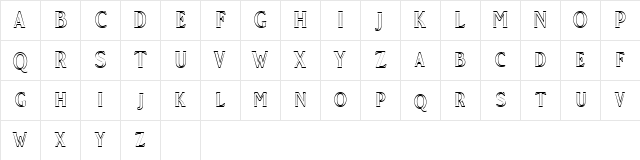
Gold Coast Free Outline Regular
Design Context for Gold Coast Free Outline Typeface
Gold Coast Free Outline is built around its visual character rather than neutral utility — its distinctive forms are designed to make an impression at display sizes.
Font Pairing: Pair with a clean neutral sans-serif for body copy to let Gold Coast Free Outline's character lead without overwhelming the composition.
Pro Tip: Use Gold Coast Free Outline exclusively at display sizes — it was designed to be seen, not read at length. Let a neutral companion handle body copy.